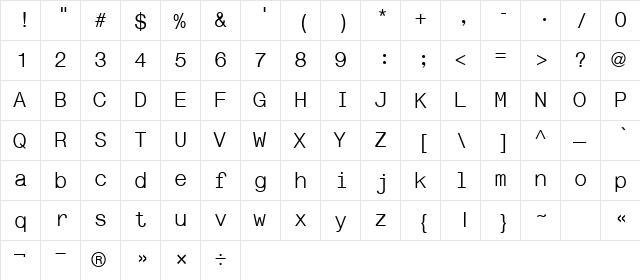
r_thai Regular
Design Context for r_thai Typeface
r_thai takes a measured approach to typography — its balanced proportions and neutral character make it a reliable workhorse for both digital and print work.